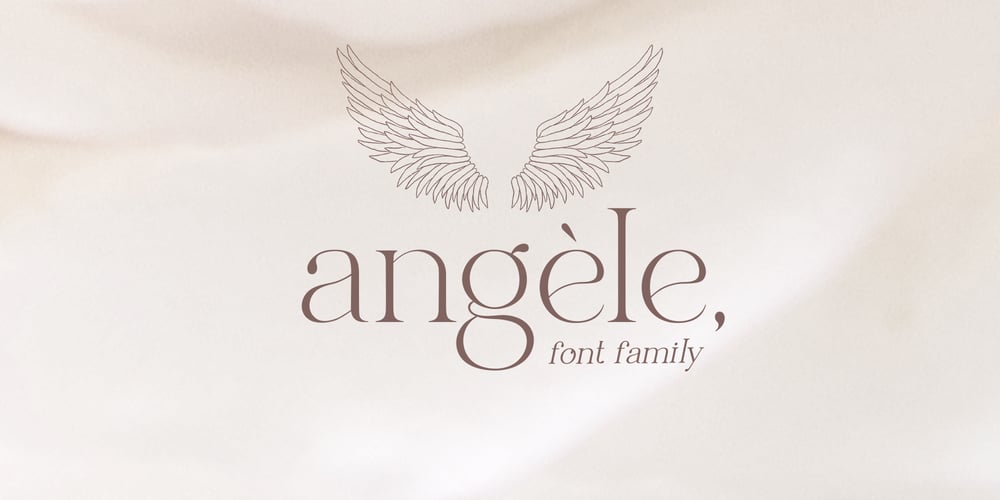
Angele
Angele font
Angele Font Family was designed by Angele Kamp and published by Angele Kamp. Angele contains 4 styles and family package options. Angele is an elegant serif font with stylish curves. This beautiful serif is timeless and can not be missed in your font collection. This font collection will give your design projects that instant touch of class.Once you download this collection you will be able to start designing straight away. Have fun creating!